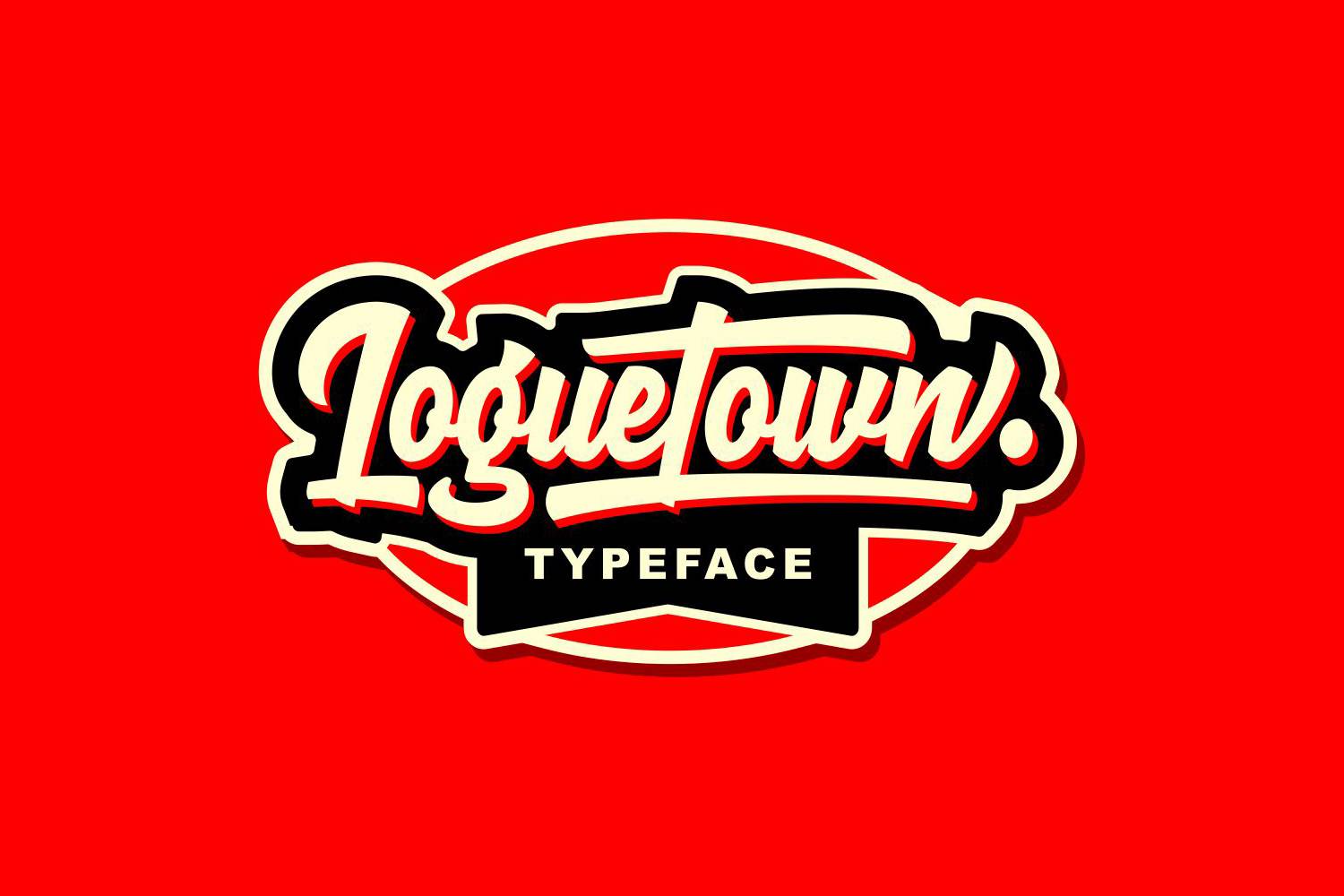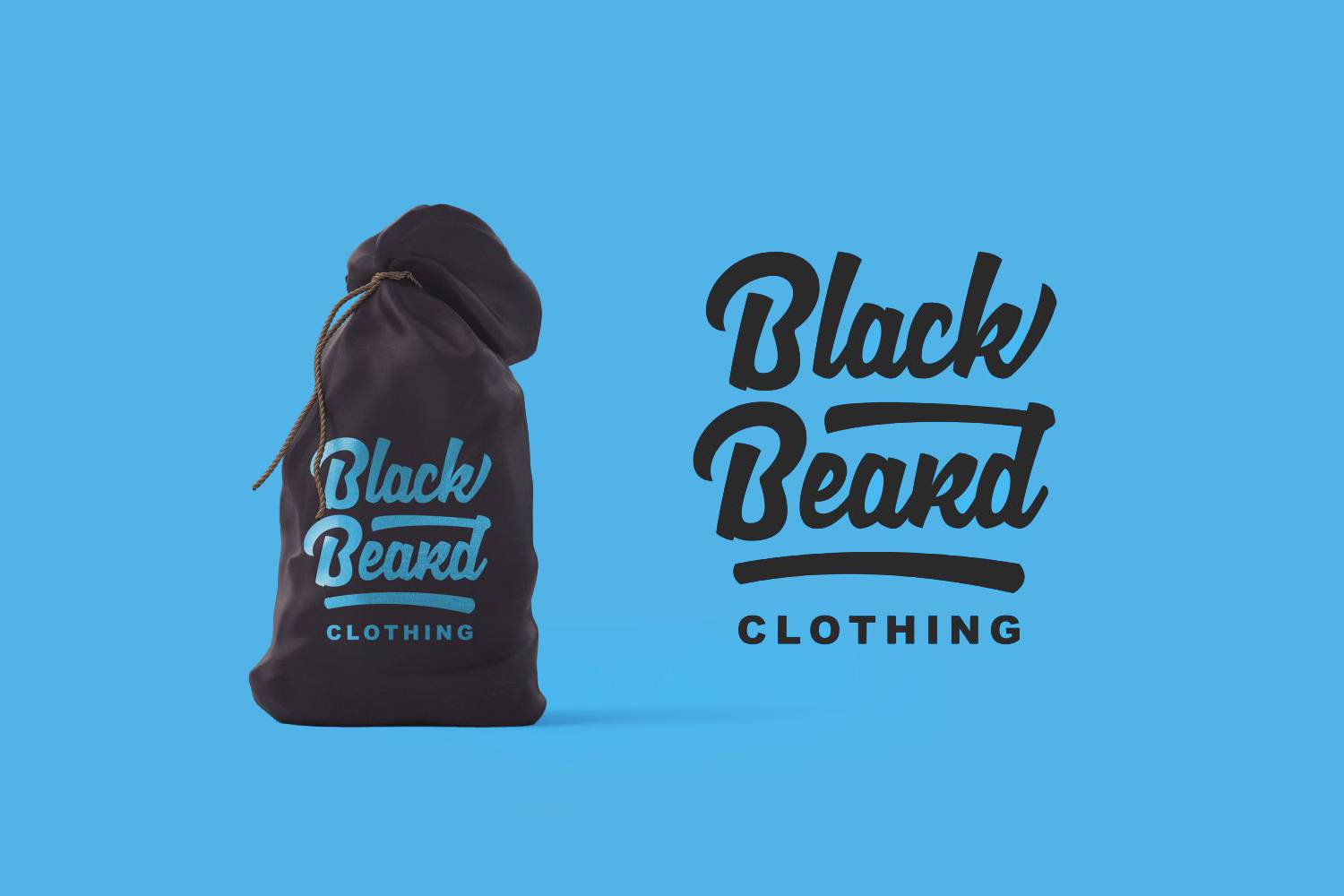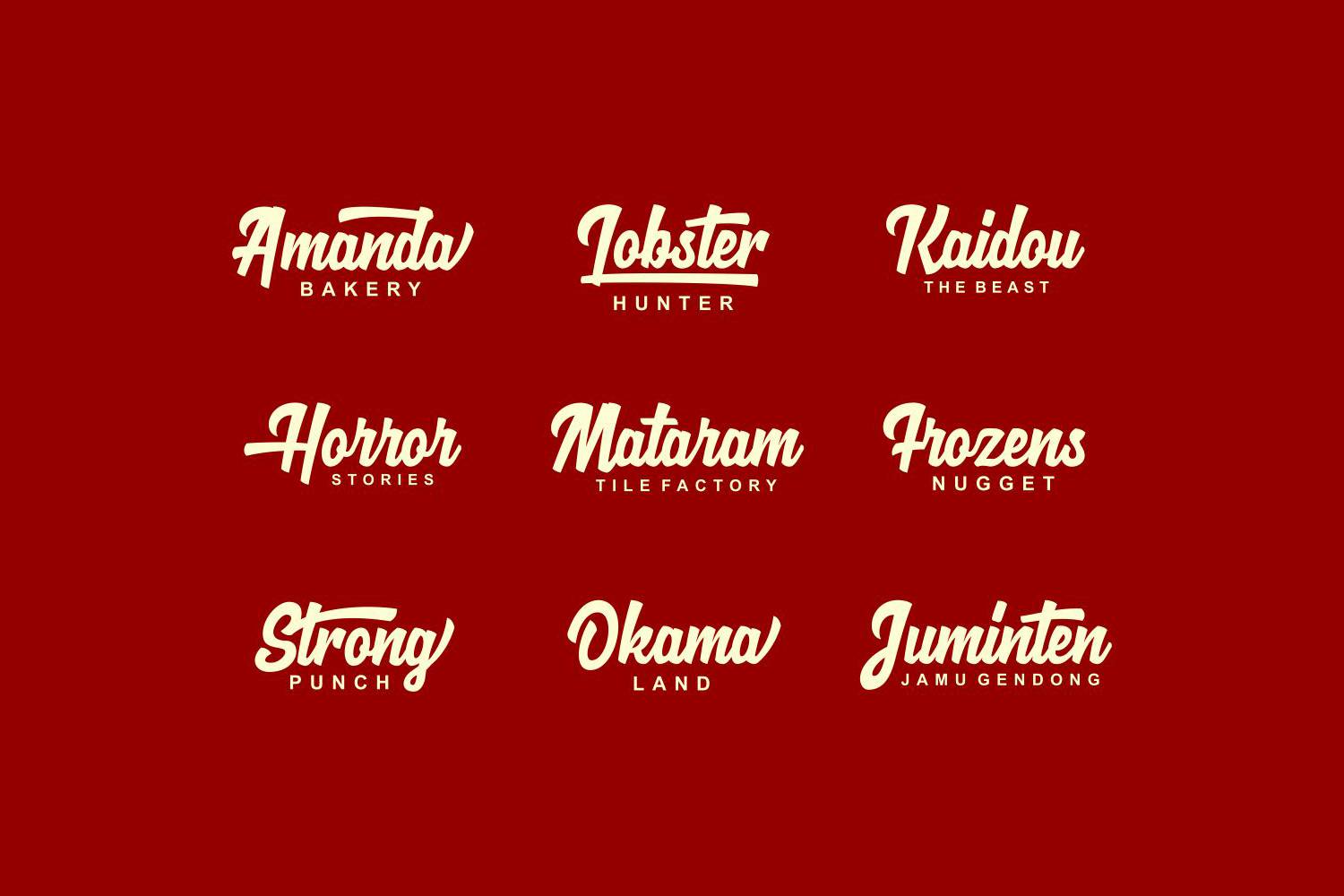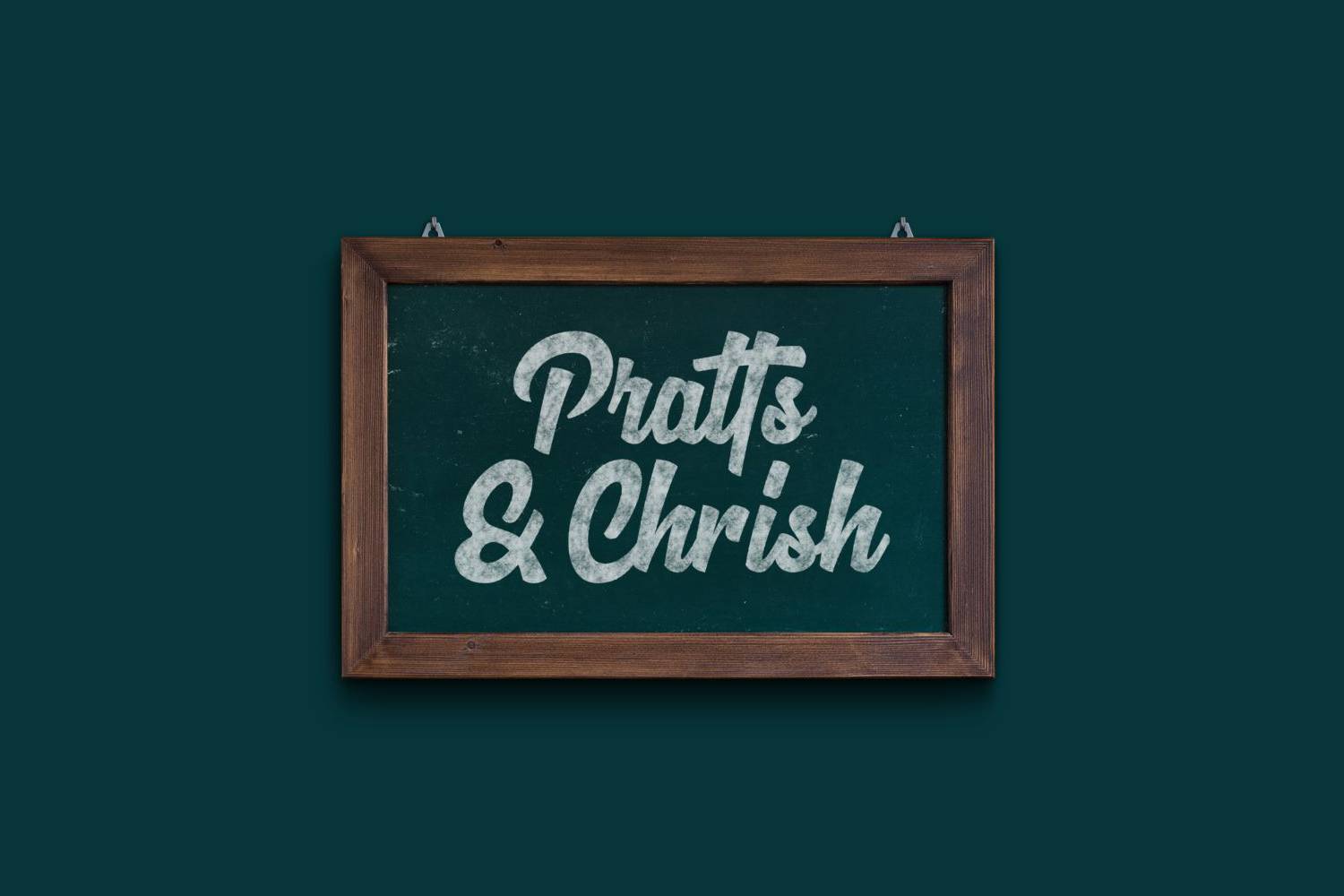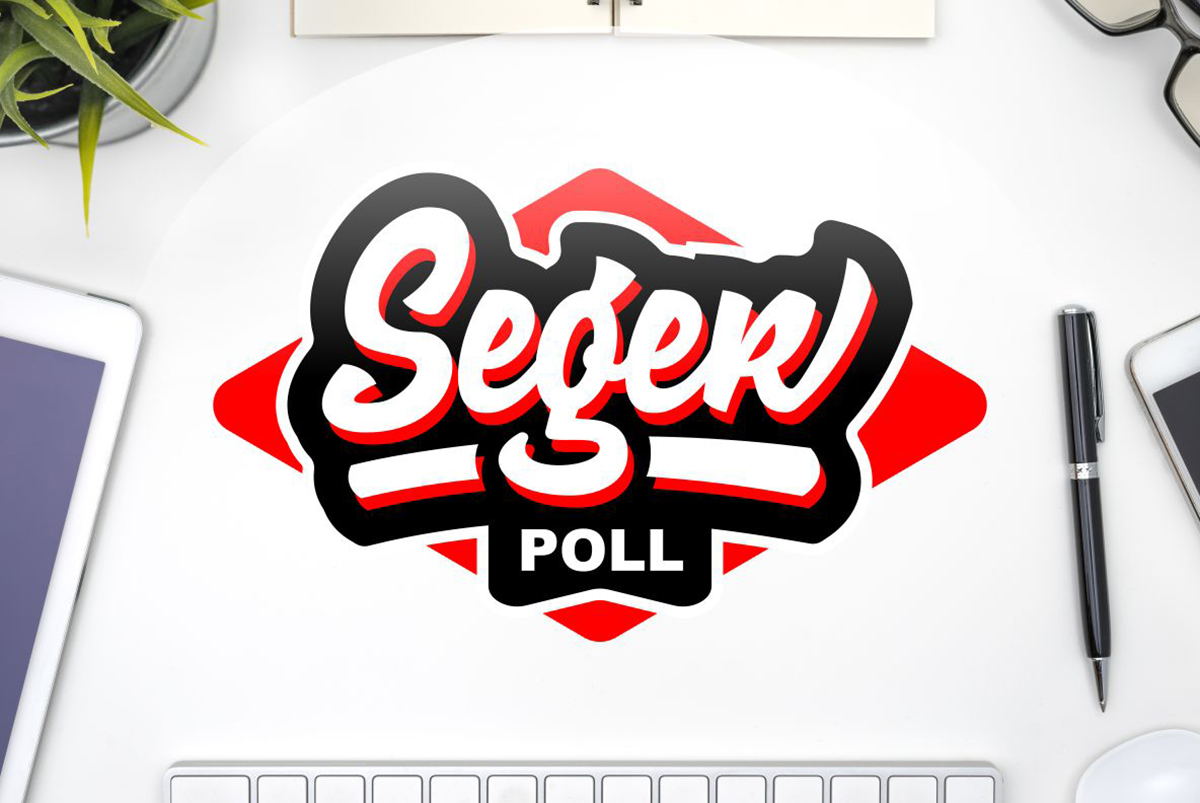
Loguetown is a bold, script-style font with a lively and dynamic personality, characterized by its smooth, connected letterforms and strong strokes that offer good readability. Its playful yet confident feel makes it ideal for branding, headlines, logos, and creative projects where a friendly and energetic touch is desired. This font works well in designs that need a personal, hand-lettered vibe while maintaining a professional and polished appearance.
Loguetown Font
About Loguetown Font
| Font family | Loguetown Font |